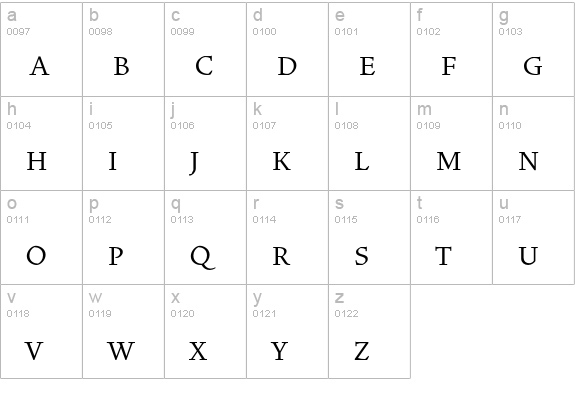
VendettaLightSmallCaps Font Details
VendettaLightSmallCaps is a captivating and charismatic font that exudes an air of sophistication and modernity. Its sleek and slender design, combined with its small caps style, makes it perfect for adding a touch of elegance to any project. This font is perfect for those seeking a unique and eye-catching typeface that will set their designs apart from the rest. Whether you're creating a logo, a headline, or a sleek and stylish branding campaign, VendettaLightSmallCaps is sure to make a lasting impression. What makes this font even more appealing is that it is freely available to download at FontsMarket.com. Yes, you read that right – it's completely free! Now you can enjoy the benefits of this stunning font without having to spend a penny. So go ahead and unleash your creativity with VendettaLightSmallCaps. Download it today and let it elevate your designs to new heights. Whether you're a professional designer or a passionate hobbyist, this font is a must-have in your collection. Don't miss out on this opportunity to enhance your projects with this remarkable font – download VendettaLightSmallCaps now at FontsMarket.com!